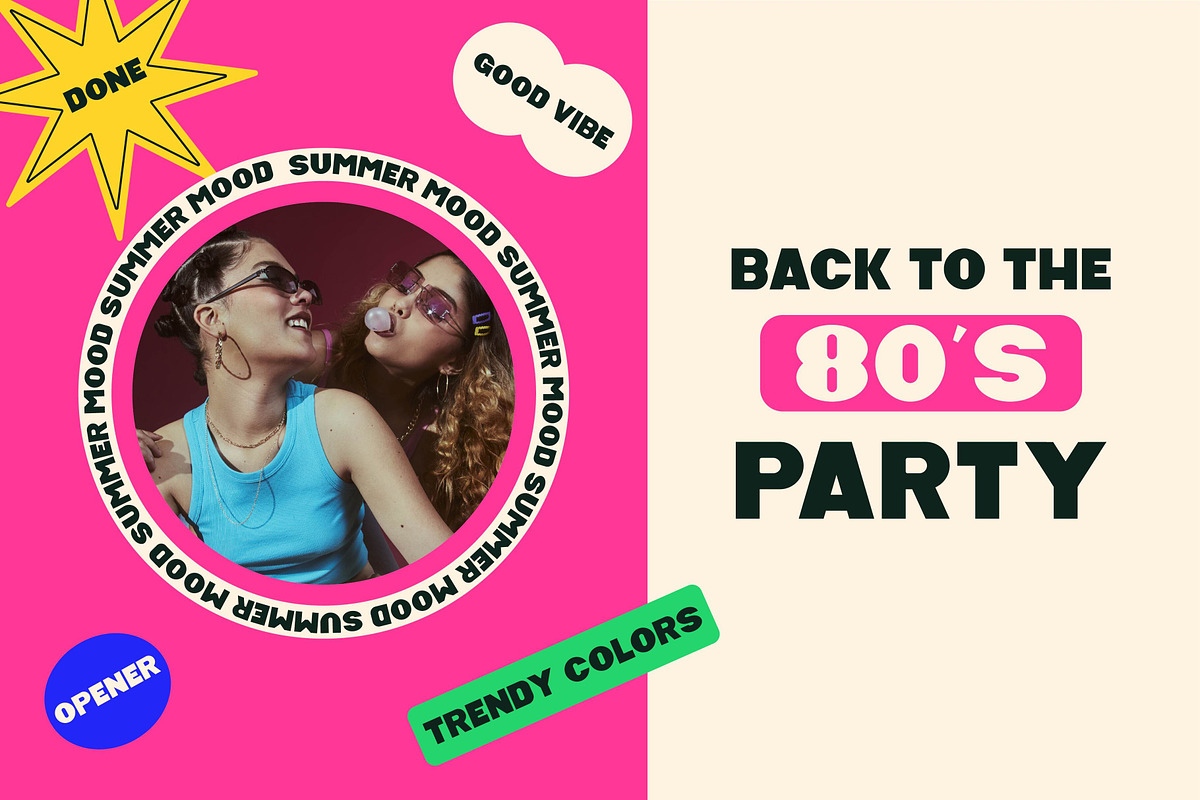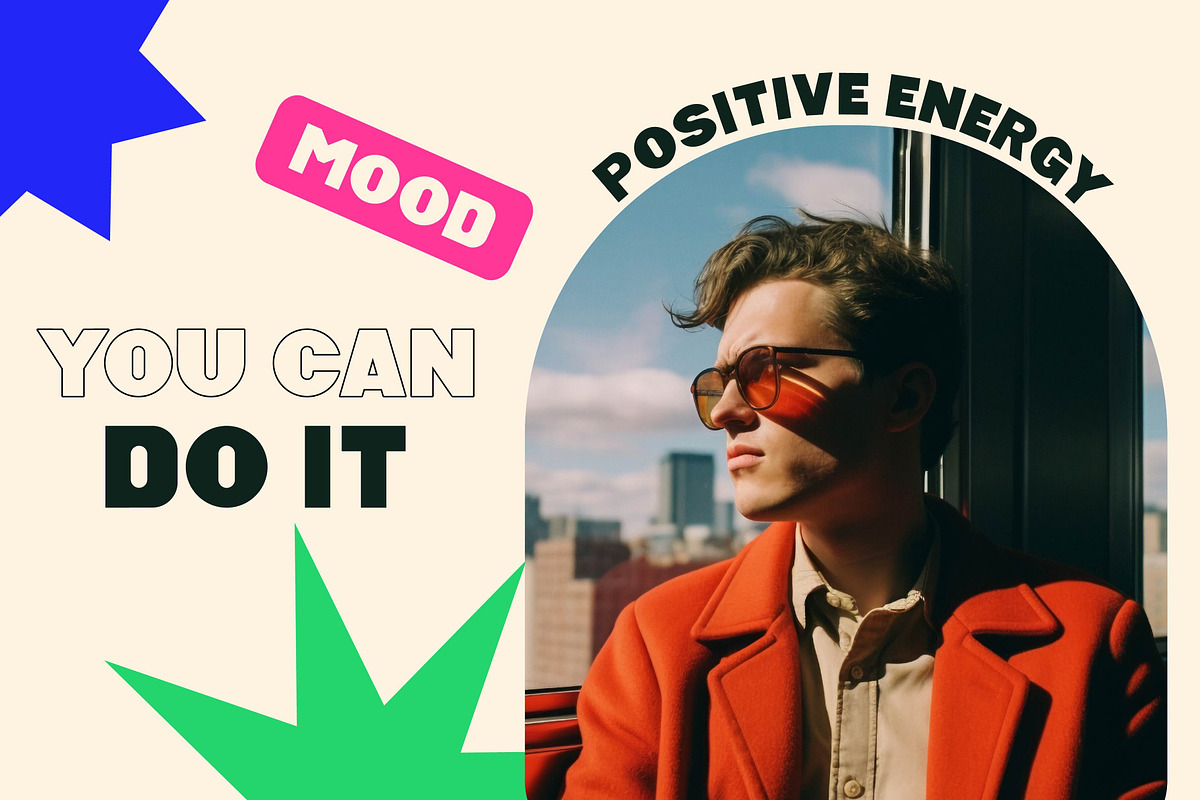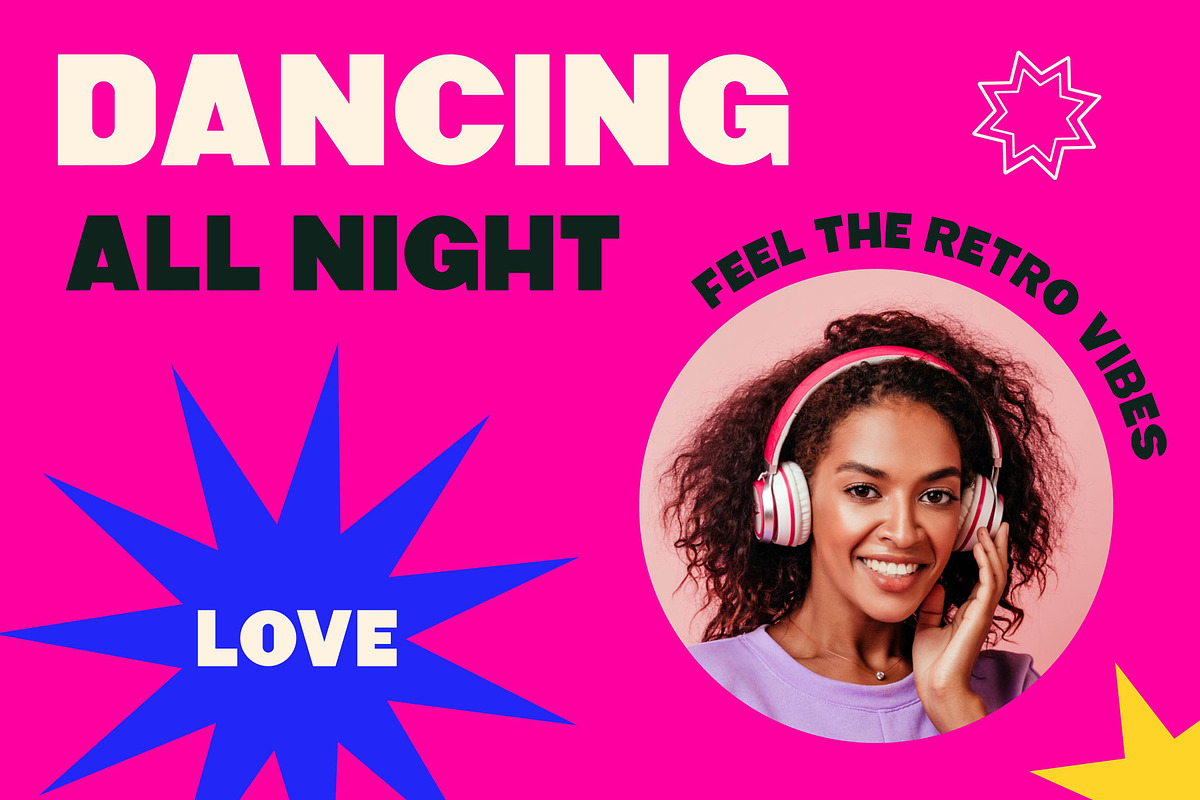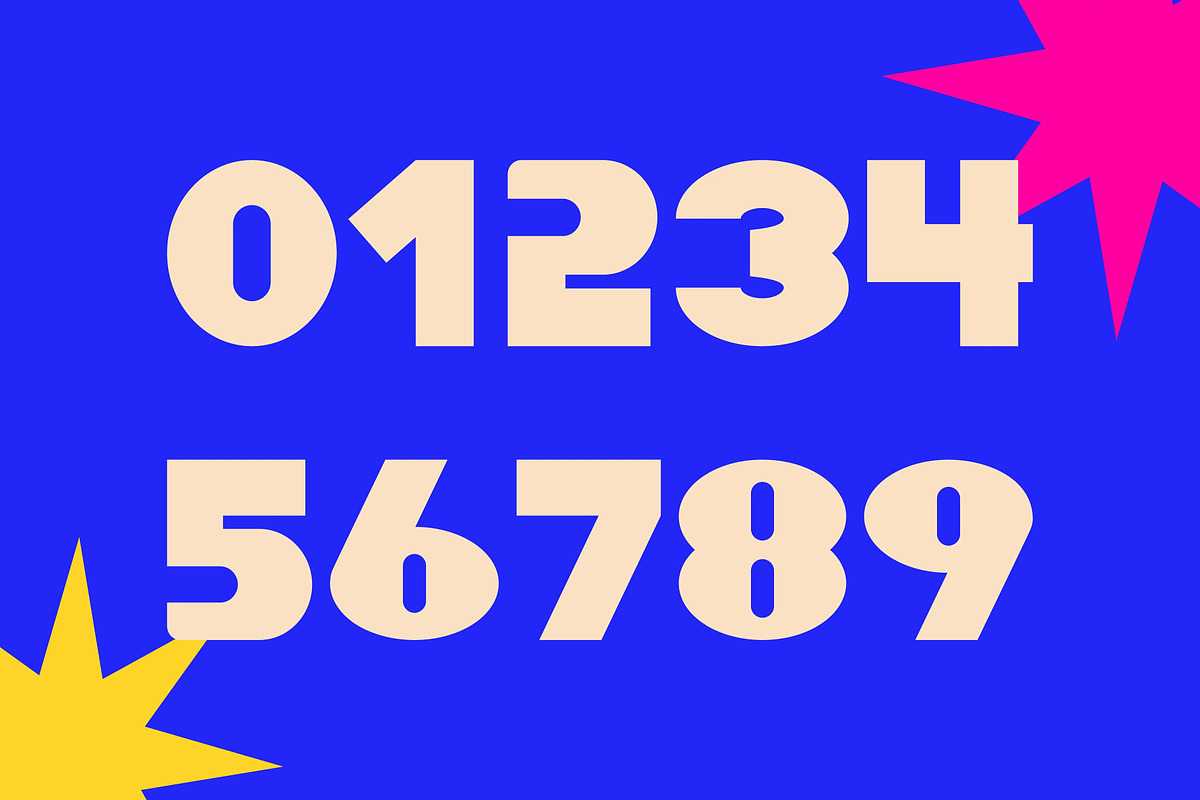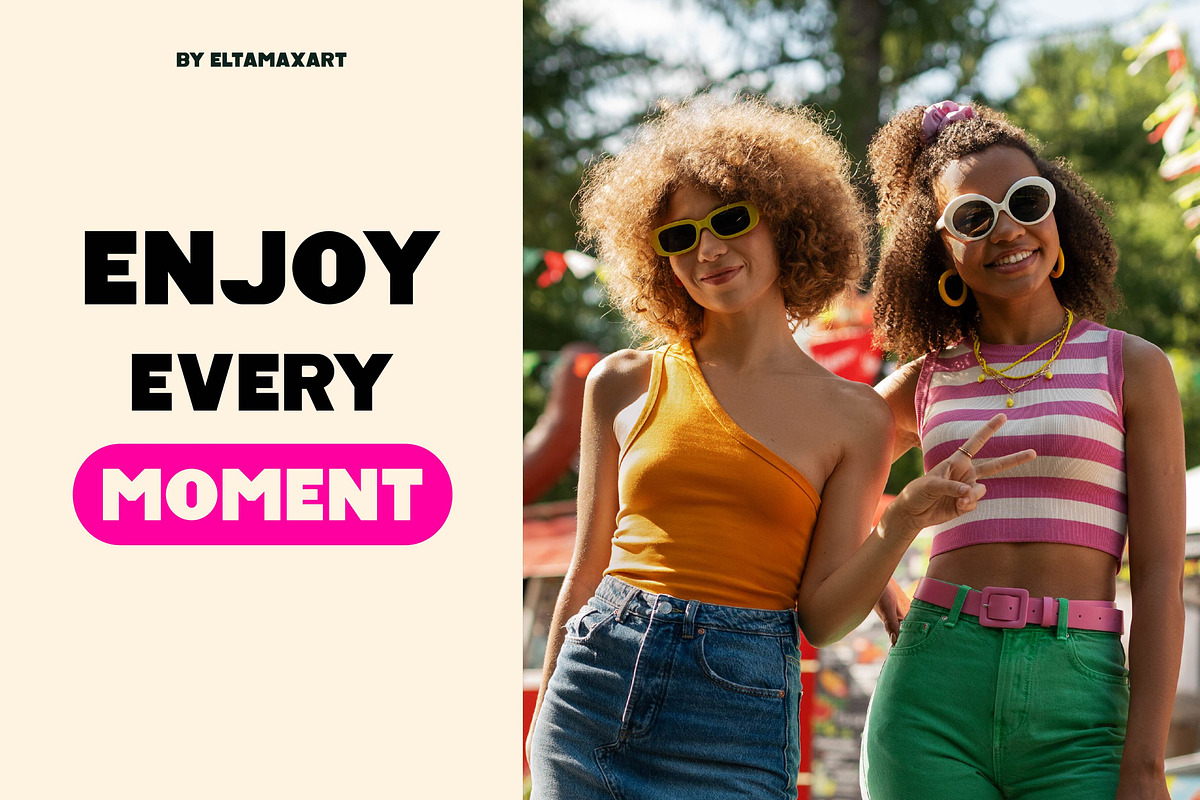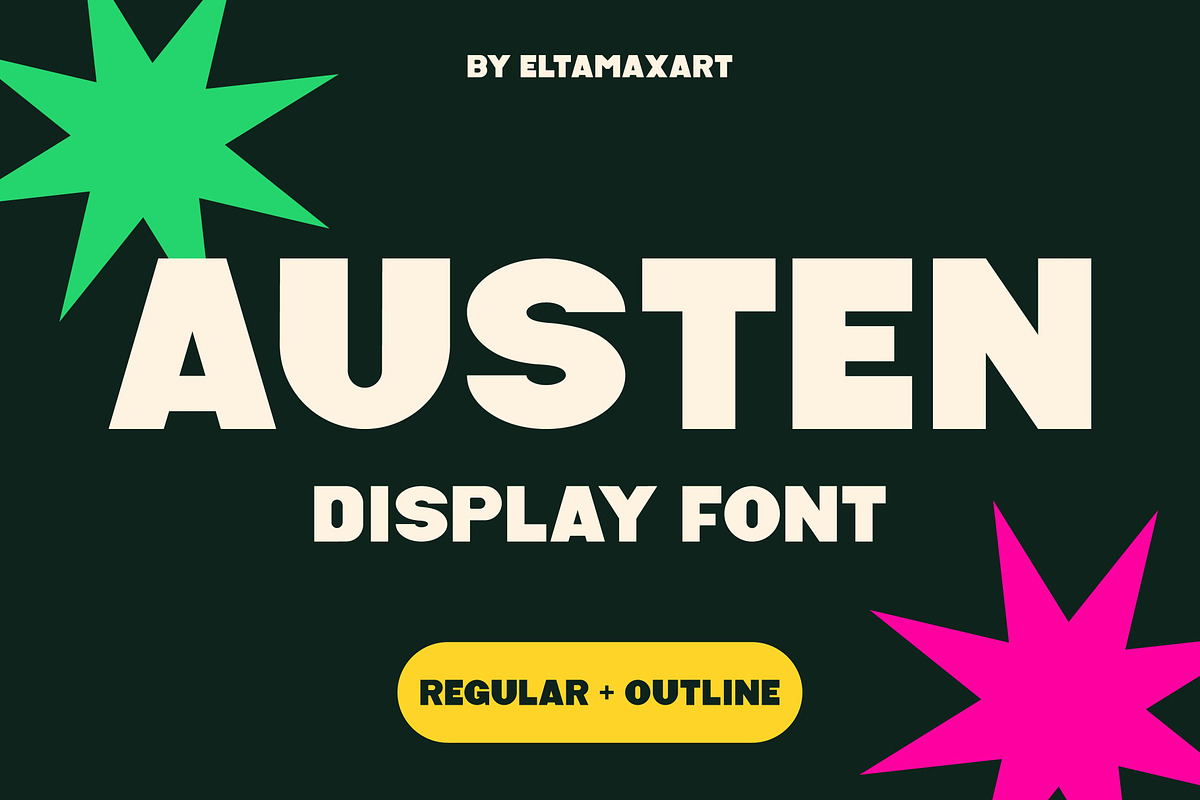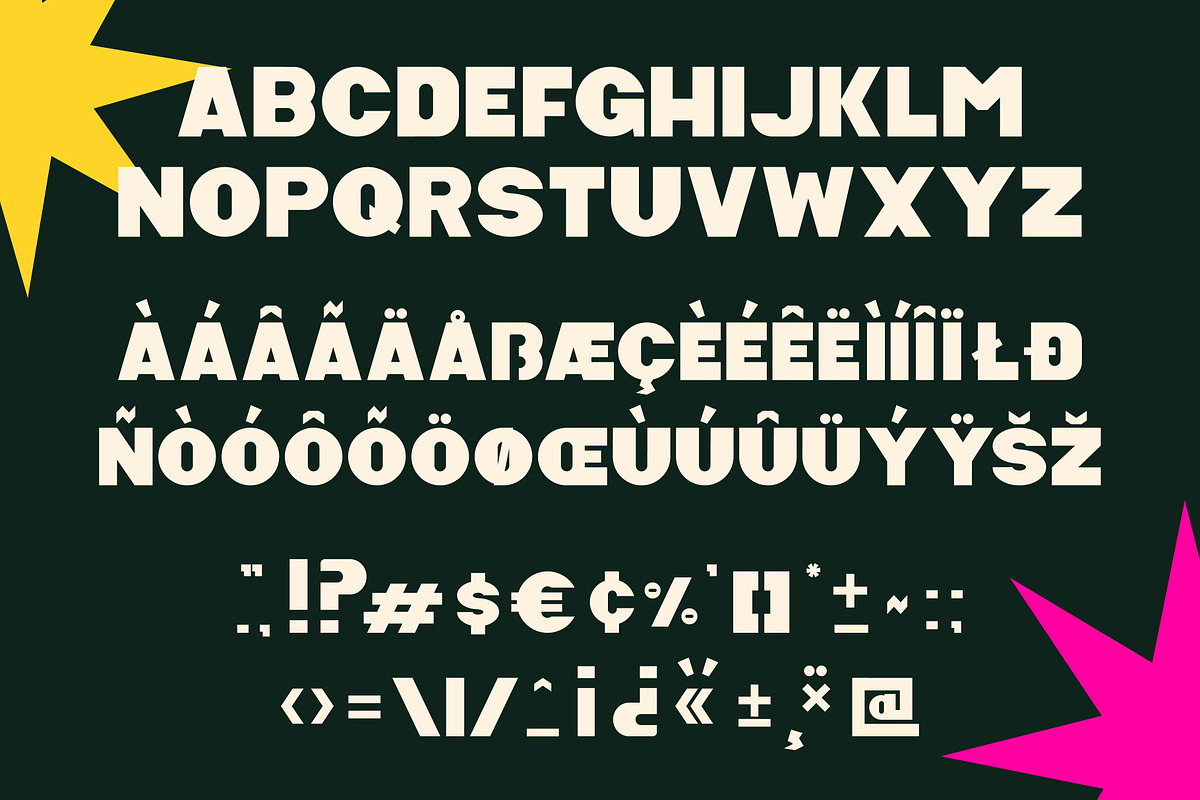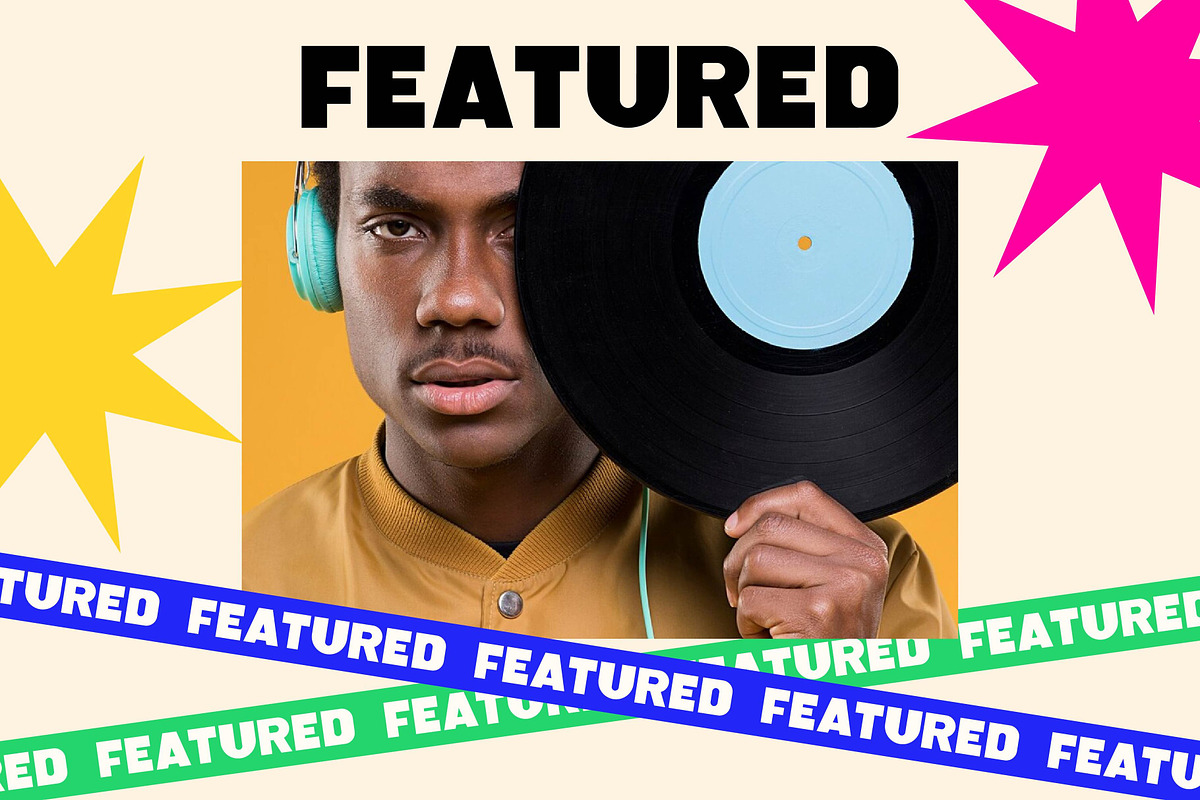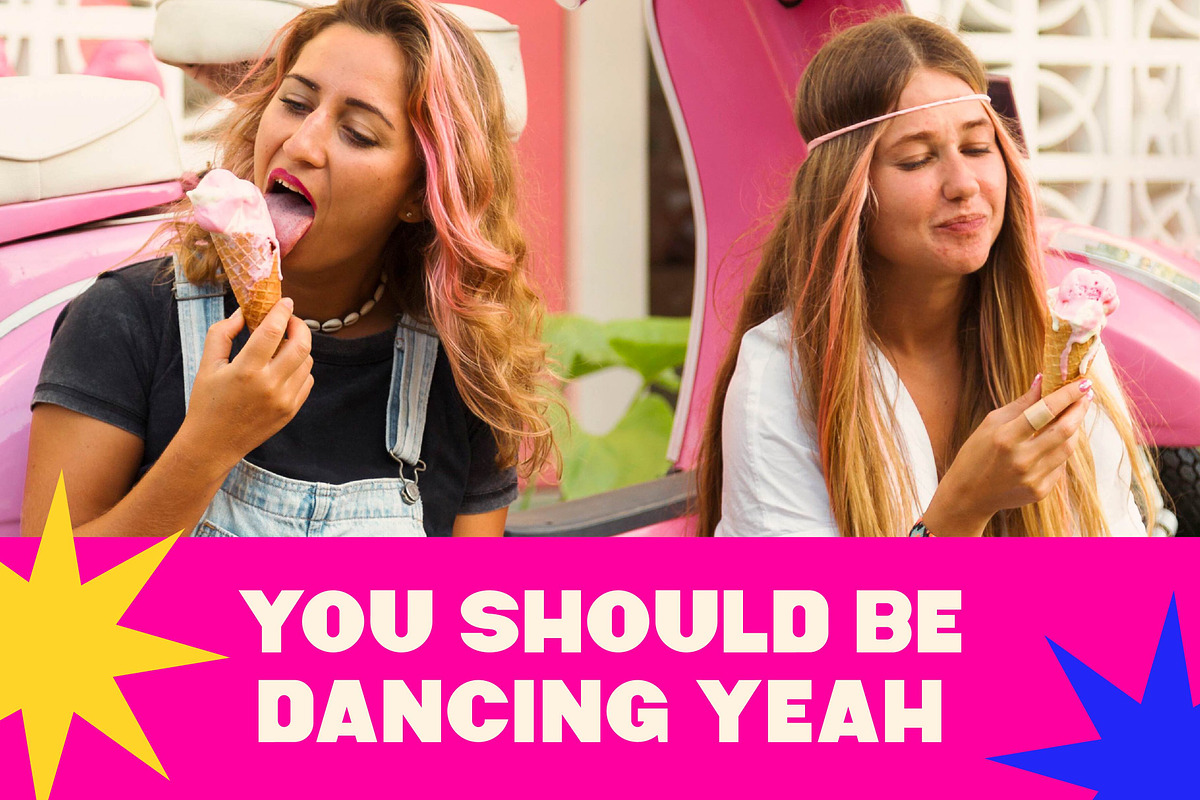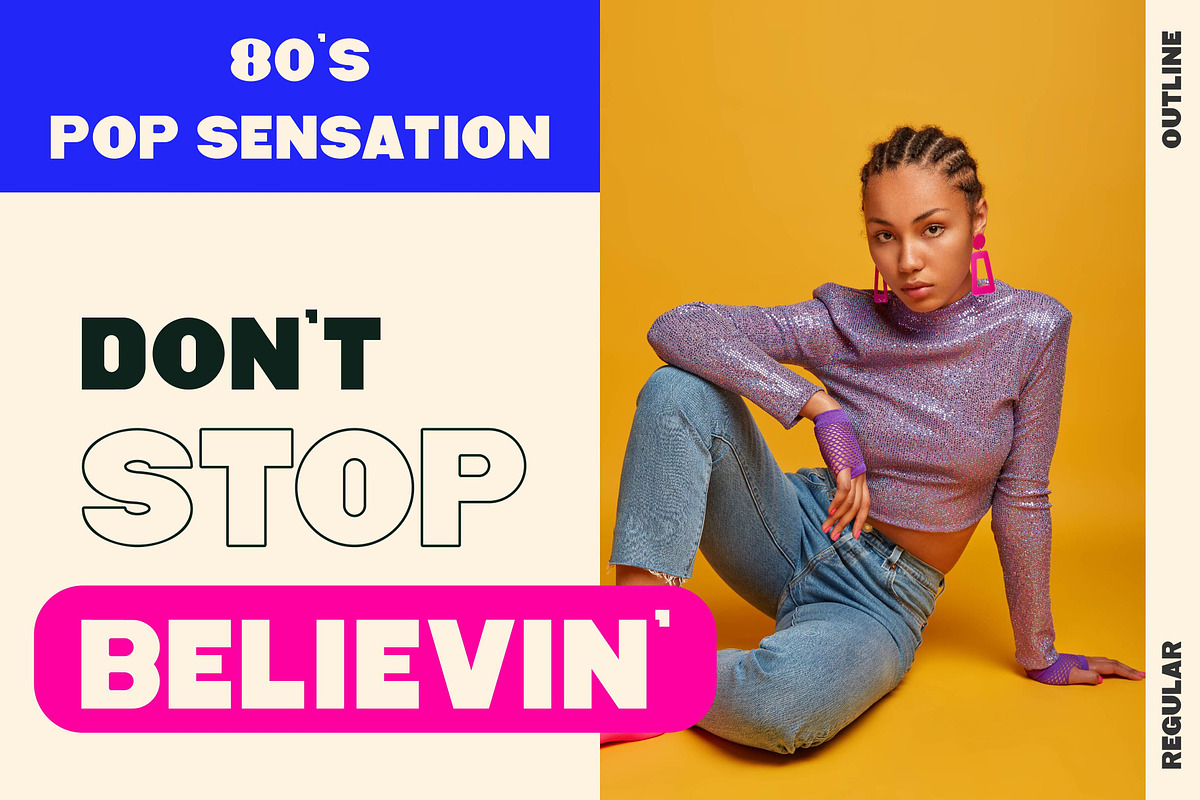
Austen Display Typeface
Austen Display Font comes in two versions - Regular and Outline. Austen will perfect for many project: invitations, game poster, music cover, poster, quotes, blog header, t-shirt, etc.